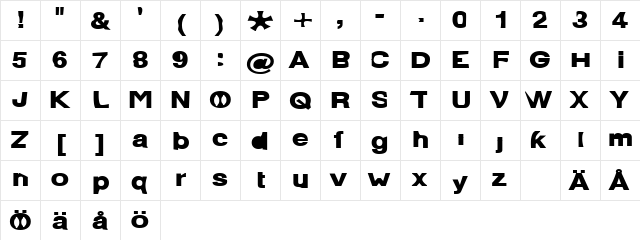
Paolo Bold Extented Normal Font Preview
Paolo Bold Extented Normal
Design Context for Paolo Bold Extented Typeface
Paolo Bold Extented offers clean, dependable letterforms without strong stylistic allegiance, making it a practical choice for designers who need flexibility. The heavy weight commands attention and anchors typographic hierarchies.
Pro Tip: Pair Paolo Bold Extented with a font of contrasting weight or personality to build a more expressive typographic hierarchy.